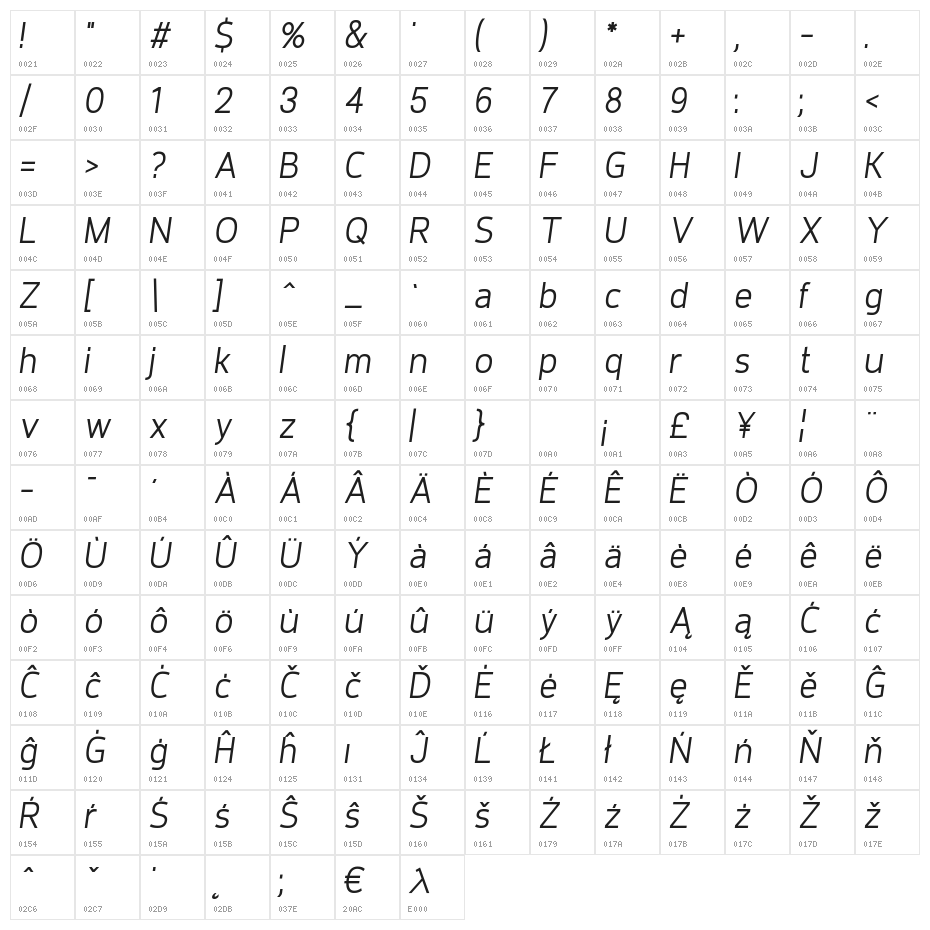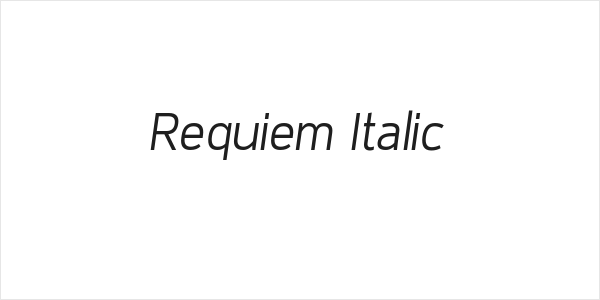
Requiem Italic Font
Requiem Italic Description
This font features a sleek and modern italic style with a clean and streamlined appearance. The characters are slightly slanted, giving a sense of motion and elegance. The strokes are consistent in width, providing a uniform look across all characters. The font maintains a balanced proportion, ensuring readability while adding a touch of sophistication. It includes a full set of uppercase and lowercase letters, numbers, and a variety of special characters, making it versatile for different design needs.
| Proposed Projects | Ideal for branding, editorial design, and digital interfaces where a modern and elegant touch is desired. |